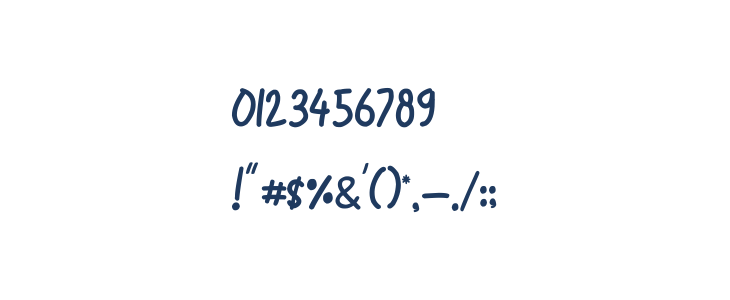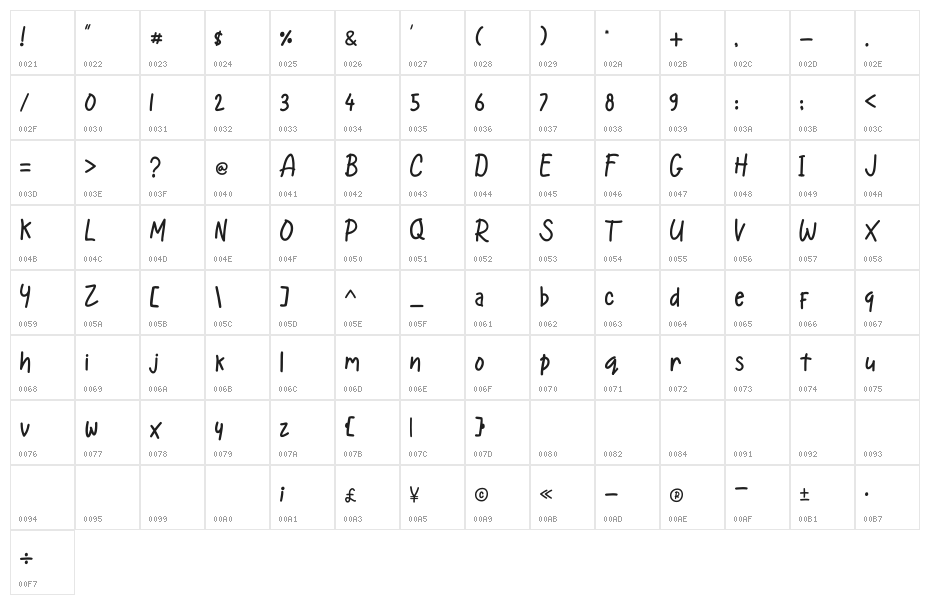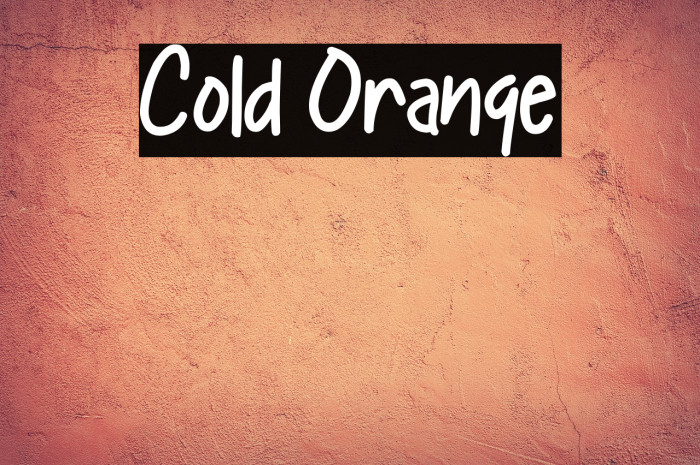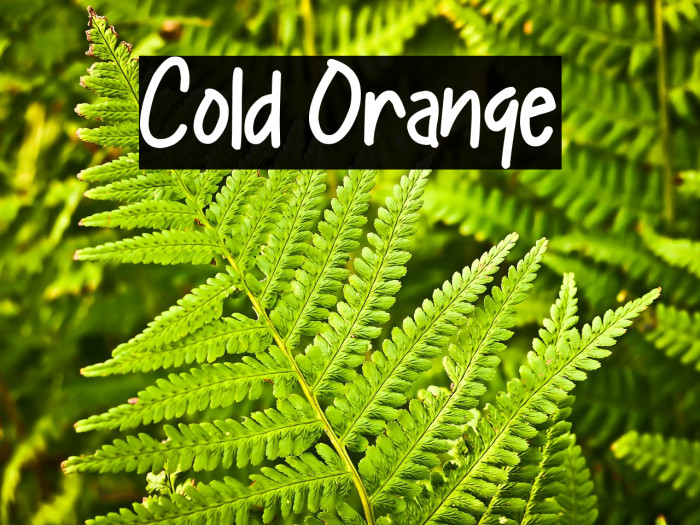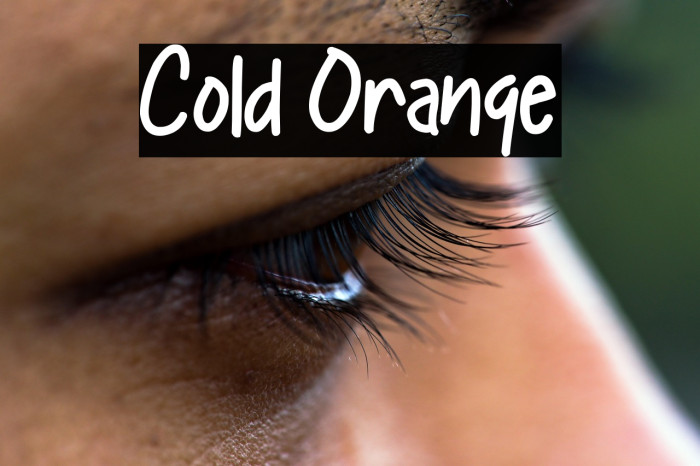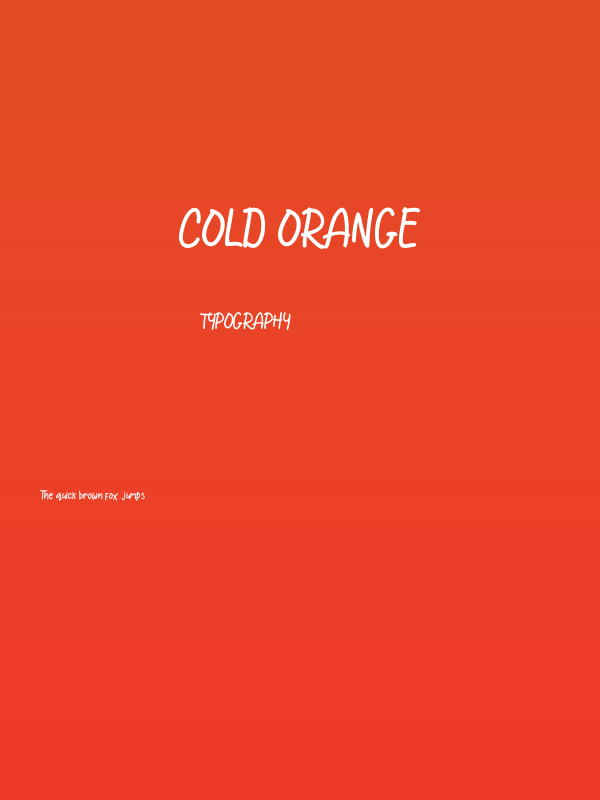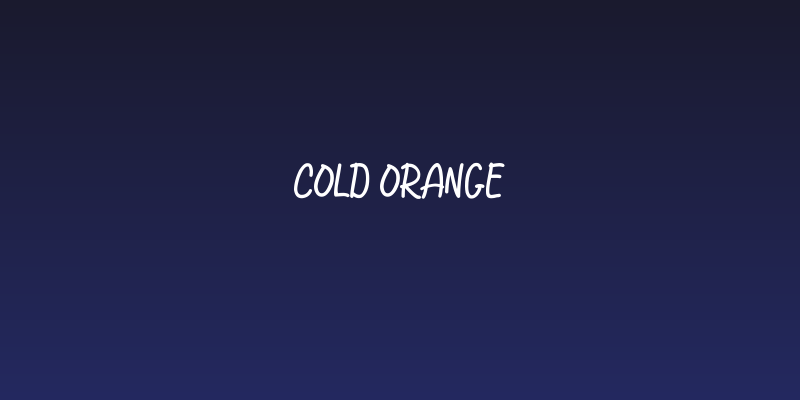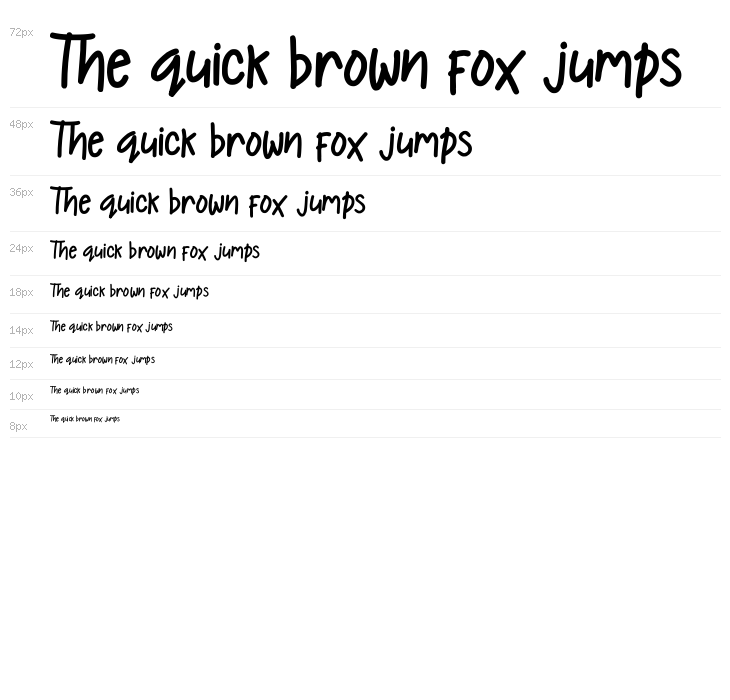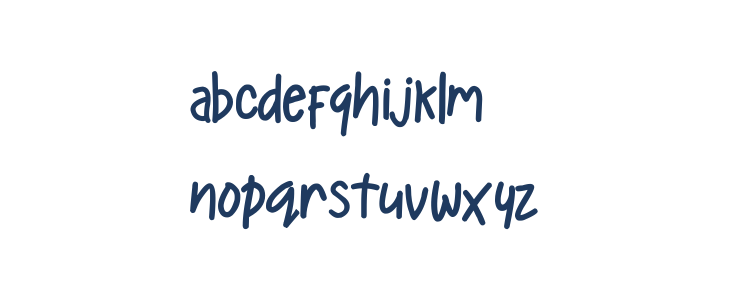
Cold Orange Font
Cold Orange Description
This font features a playful and casual handwritten style, characterized by its smooth, rounded strokes and slightly irregular letterforms that give it a friendly and approachable appearance. The uppercase and lowercase letters maintain a consistent flow, with a slight slant that adds to the informal aesthetic. The numerals and special characters are crafted with the same attention to detail, ensuring uniformity across the character set. This font is well-suited for projects that require a personal touch, such as invitations, greeting cards, or branding materials that aim to convey warmth and creativity.
| Overall Style | Casual, Playful |
| Use Case | Headlines, Informal text, Creative projects |
| Proposed Projects | Ideal for invitations, greeting cards, personal branding, and creative projects. |